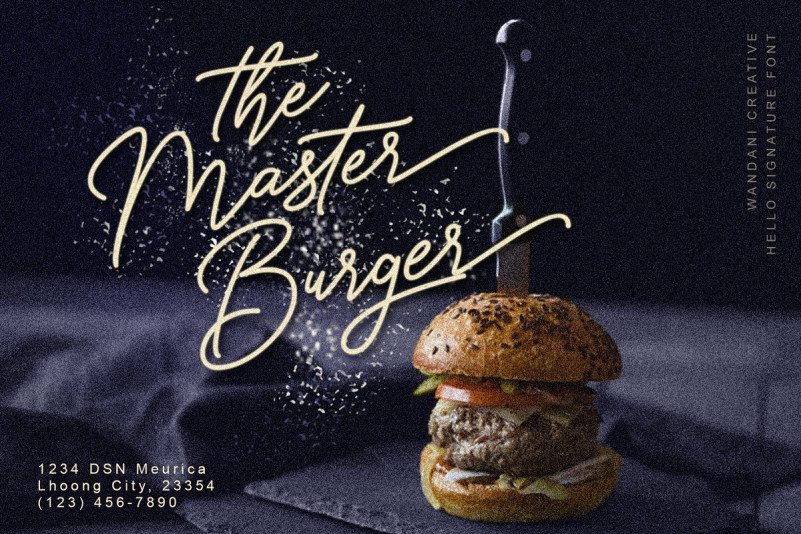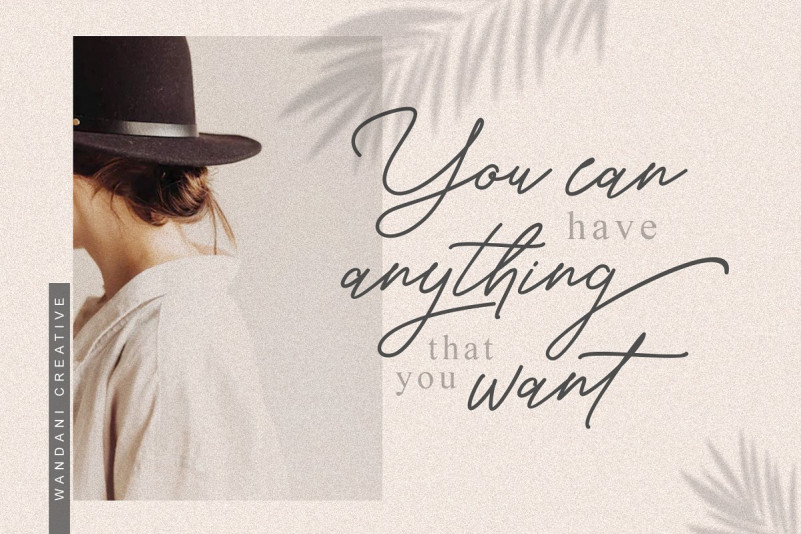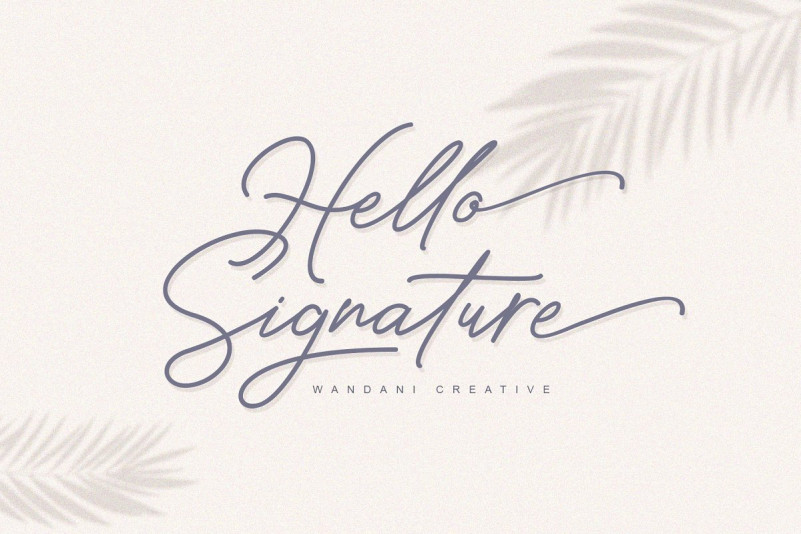
Hello Signature Script Font
Hello Signature is an elegant signature font. It has a dancing baseline which will give your design a fresh and modern feel. It’s perfect for greeting cards, branding materials, business cards, quotes, posters, and every other design which needs to look upscale and chic!